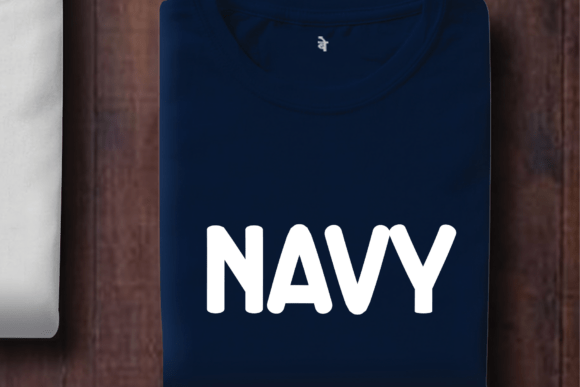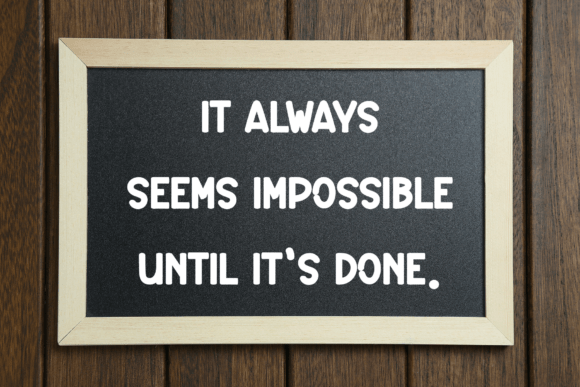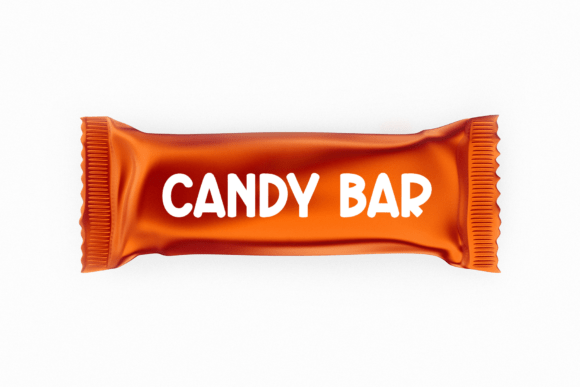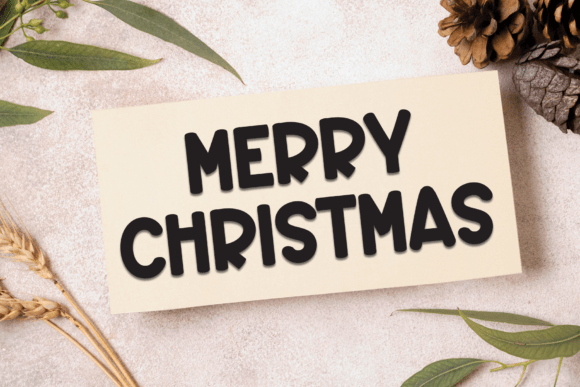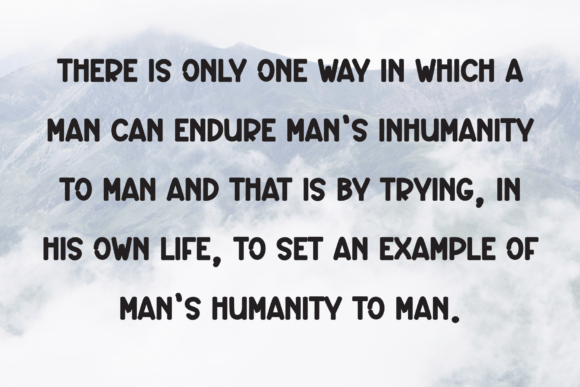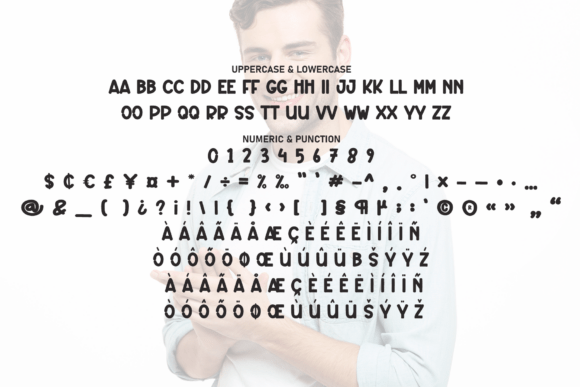
Introducing Handsome Font: The Perfect Blend of Simplicity and Friendliness
In the world of typography, a font can make or break a design. It can elevate a brand’s identity, convey its message, and leave a lasting impression on its audience. If you’re a designer or crafter looking for a font that embodies modern simplicity with a friendly twist, look no further than Handsome Font. In this article, we’ll dive into the features, benefits, and uses of Handsome Font, and explore why it’s becoming a go-to choice for creatives.
What is Handsome Font?
Handsome Font is a casual and neat display font that strikes the perfect balance between simplicity and approachability. Its clean lines, balanced letterforms, and subtle rounded edges give it a polished finish that’s reminiscent of modern handwritten typography. With its crisp structure and versatile style, Handsome Font delivers clarity and charm in equal measure, making it an excellent addition to any design.
Key Features of Handsome Font
- Clean Lines and Balanced Letterforms: Handsome Font boasts clean lines and balanced letterforms that give it a sense of sophistication and elegance.
- Subtle Rounded Edges: The subtle rounded edges of Handsome Font add a touch of friendliness and approachability, making it perfect for designs that require a warm and inviting tone.
- Versatile Style: Handsome Font is a versatile font that can be used for a wide range of design applications, from branding and headlines to packaging and digital content.
- Modern Handwritten Typography: Handsome Font captures the essence of modern handwritten typography with a polished finish, making it an excellent choice for designers looking for a font that’s both modern and elegant.
Benefits of Using Handsome Font
So, why should you choose Handsome Font for your next design project? Here are just a few benefits of using this amazing font:
- Easy to Read: Handsome Font is incredibly easy to read, making it perfect for digital content, such as blog posts, social media, and website headers.
- Highly Versatile: Handsome Font can be used for a wide range of design applications, from branding and packaging to headlines and titles.
- Unique and Memorable: Handsome Font has a unique and memorable style that will help your design stand out from the crowd.
- Time-Saving: With Handsome Font, you can create professional-looking designs in no time, saving you time and effort.
Use Cases for Handsome Font
Handsome Font is an incredibly versatile font that can be used for a wide range of design applications. Here are just a few use cases to get you started:
- Branding: Use Handsome Font to create a unique and memorable brand identity that reflects your company’s values and personality.
- Headlines and Titles: Handsome Font is perfect for headlines and titles, adding a touch of elegance and sophistication to any design.
- Packaging: Use Handsome Font to create eye-catching packaging that stands out on store shelves.
- Digital Content: Handsome Font is ideal for digital content, such as blog posts, social media, and website headers.
In conclusion, Handsome Font is an exceptional font that combines simplicity with a friendly, approachable vibe. Its clean lines, balanced letterforms, and subtle rounded edges make it perfect for a wide range of design applications, from branding and headlines to packaging and digital content. With its versatility, readability, and unique style, Handsome Font is an excellent addition to any design project. Whether you’re a designer or crafter, Handsome Font is sure to become a go-to choice for creating professional-looking designs that leave a lasting impression.